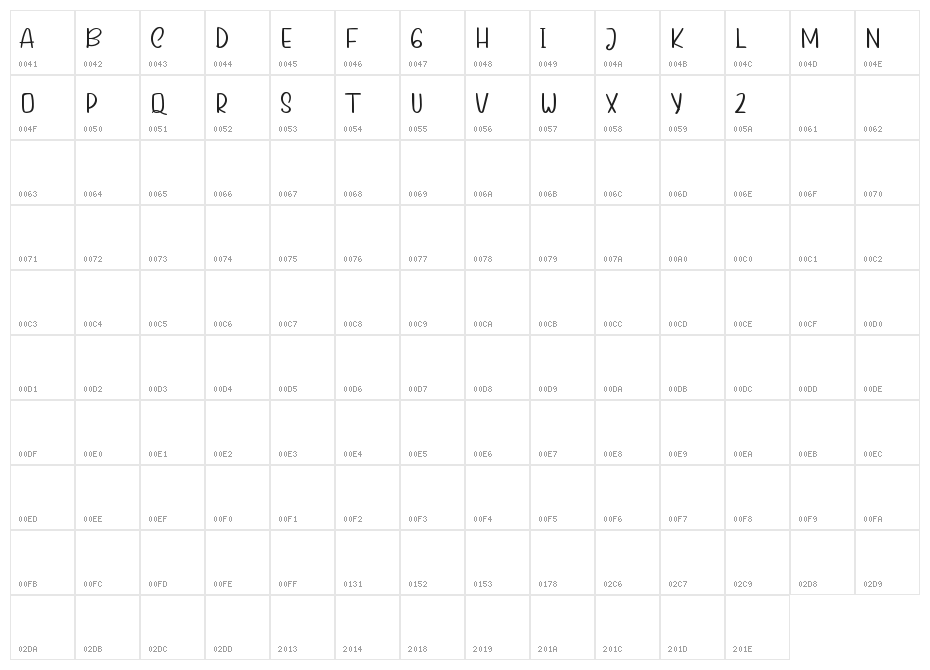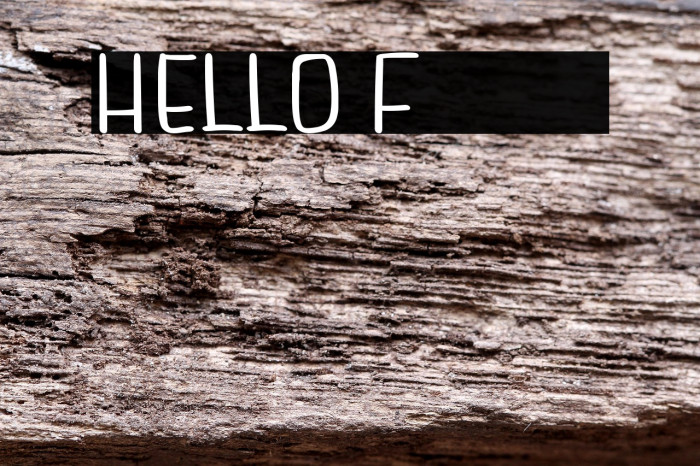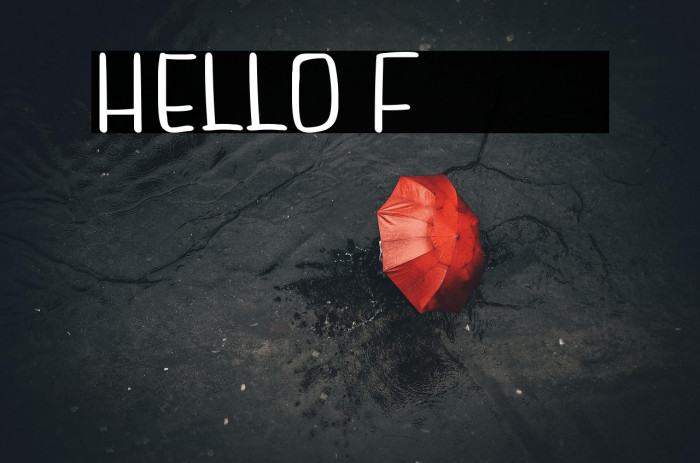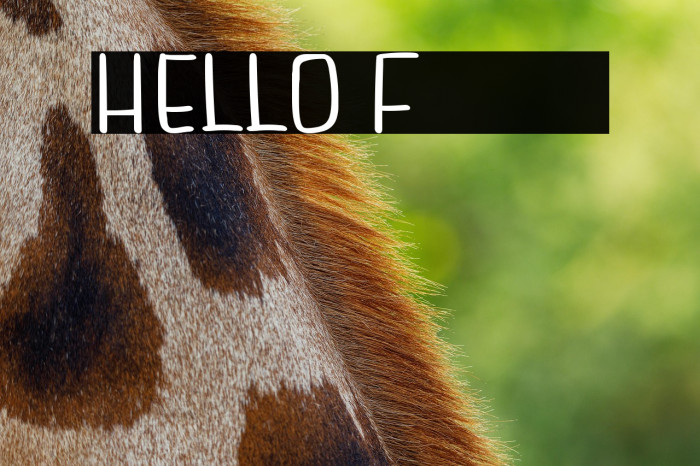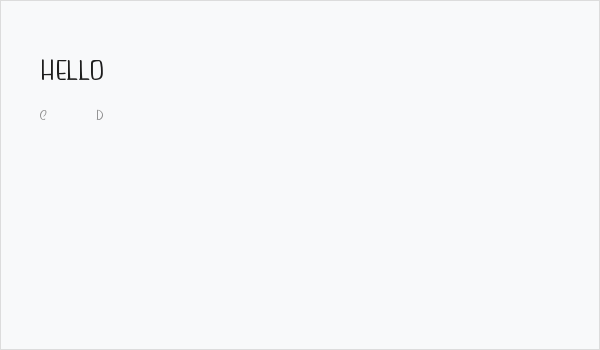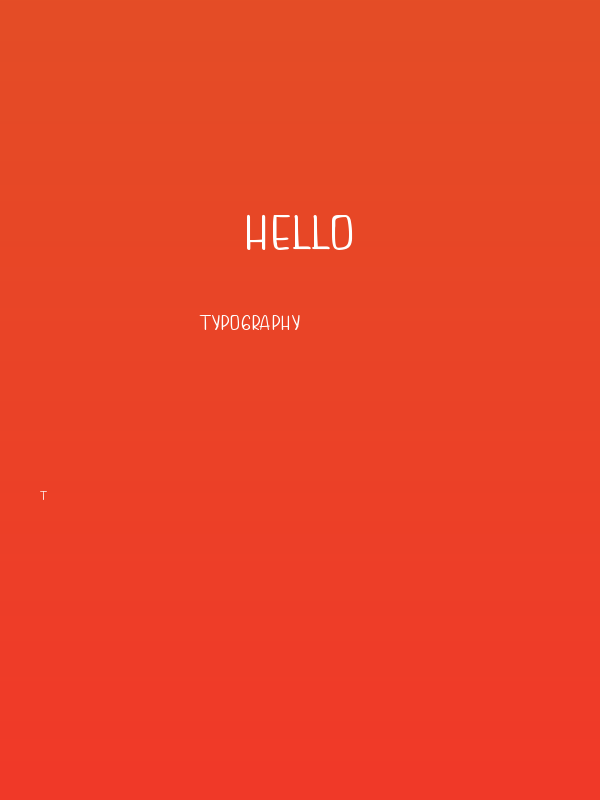
HELLO Font
HELLO Description
This playful and whimsical font features a handwritten style with a casual and friendly appearance. The letters are slightly irregular, adding a personal touch that mimics natural handwriting. The strokes are smooth and rounded, giving the font a soft and approachable feel. The uppercase letters maintain a consistent height, while the lowercase letters vary slightly, enhancing the informal aesthetic. This font is perfect for projects that require a touch of creativity and warmth, such as greeting cards, invitations, or children's book covers. Its unique character makes it stand out while remaining legible and engaging.
| Proposed Projects | Ideal for greeting cards, invitations, children's book covers, and creative projects. |